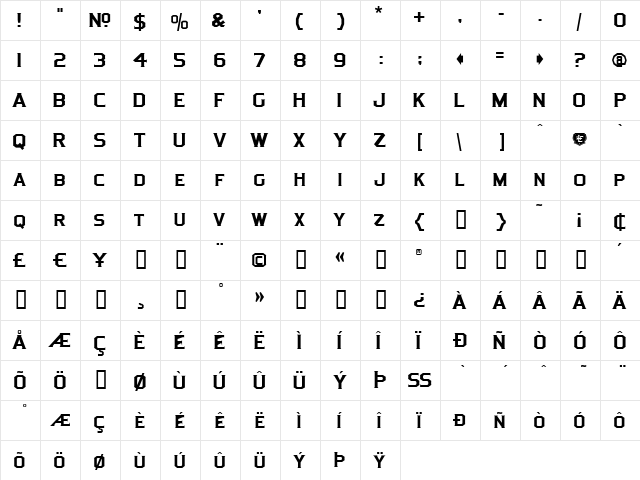
LHF Antique Half Block BETA Regular
Design Context for LHF Antique Half Block BETA Typeface
LHF Antique Half Block BETA has the warm character of retro typography — evoking diners, record sleeves, and the golden age of print advertising.
Font Pairing: Combine LHF Antique Half Block BETA with a simple slab or neutral sans — period-accurate companions reinforce the vintage feel without competing for attention.
Pro Tip: Lean into LHF Antique Half Block BETA's period character by pairing it with aged paper textures, muted colour palettes, and vintage illustration styles.